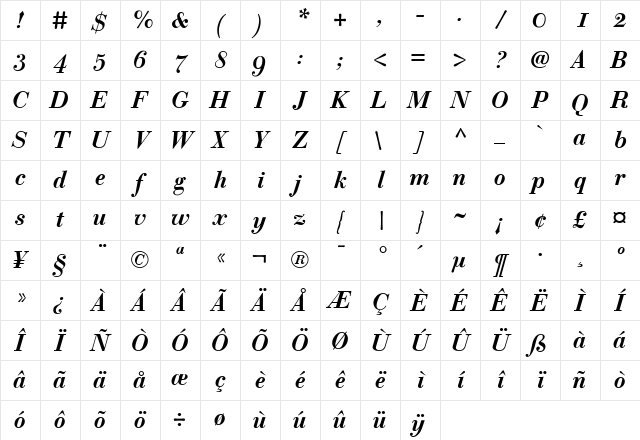
Complete Bodoni Classic Text Bold Italic glyph index. Displaying only characters natively supported by Bodoni Classic Text Bold Italic font.
Bodoni Classic Text wears its vintage influences proudly, with letterforms that recall mid-century signage, classic packaging, and nostalgia-driven design. The slanted form adds forward momentum and visual energy. Its bold stroke weight gives it real presence on the page.
Font Pairing: Combine Bodoni Classic Text with a simple slab or neutral sans - period-accurate companions reinforce the vintage feel without competing for attention.
Pro Tip: Lean into Bodoni Classic Text's period character by pairing it with aged paper textures, muted colour palettes, and vintage illustration styles.